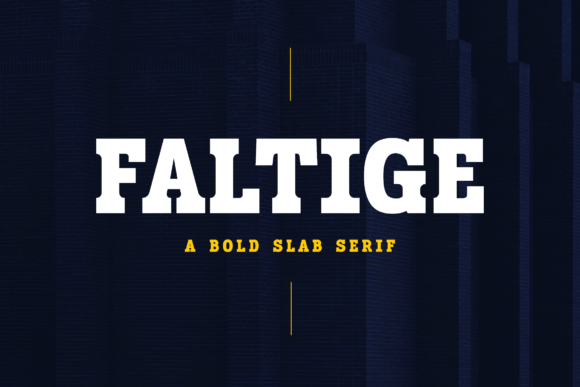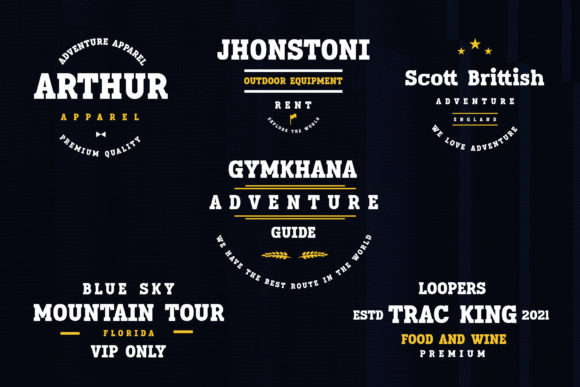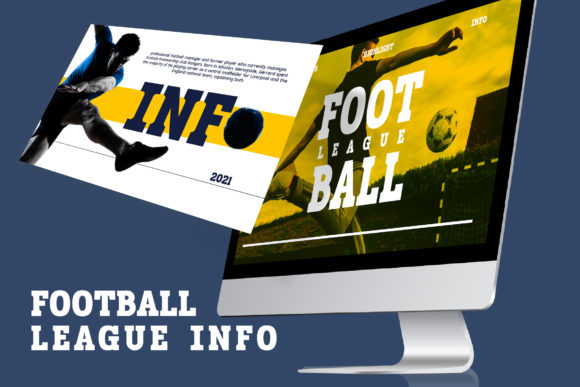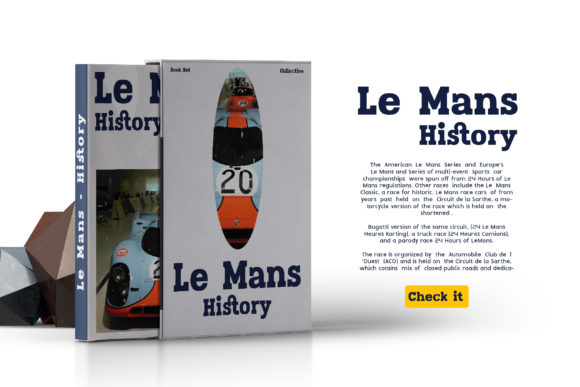
Faltige Font: Bold Slab Serif for Vintage Logo Design & Branding
About the Faltige Font
Presenting Faltige Font, a unique and stylish typeface that will make your work stand out. Faltige is a bold slab serif font. Expertly designed to make your creation look out of this world, this font will look gorgeous on a variety of ideas.
This font is ideal for writing web designs, business cards, or pretty much anything else that requires a unique touch.
Faltige’s bold slab serifs make it perfect for headlines, short impactful statements, and logos where strong visual presence is key. It excels in branding applications for products emphasizing strength, reliability, or a vintage aesthetic, and also works well on posters and packaging designs requiring a commanding presence. However, its bold weight and heavy serifs make it unsuitable for body text or UI elements where readability over long stretches is crucial.
Consider pairing Faltige with a clean sans-serif like Open Sans for a modern contrast, or a delicate script font like Great Vibes for a touch of elegance. For a more classic feel, a neutral serif such as Garamond can create a balanced and sophisticated look. Geometric sans-serif fonts like Futura would also create strong visual tension and modern feel.
Faltige projects a bold, confident personality, suggesting power and reliability. It is a font that commands attention and works best in applications that benefit from a strong, assertive visual identity.